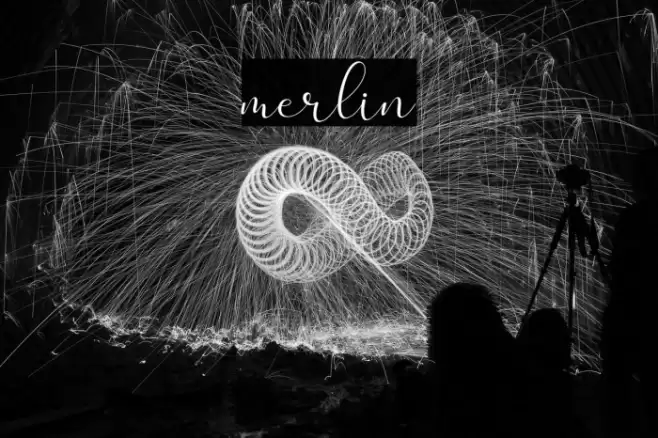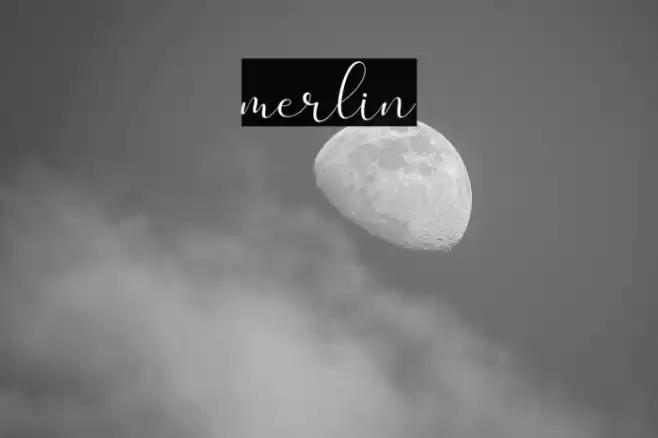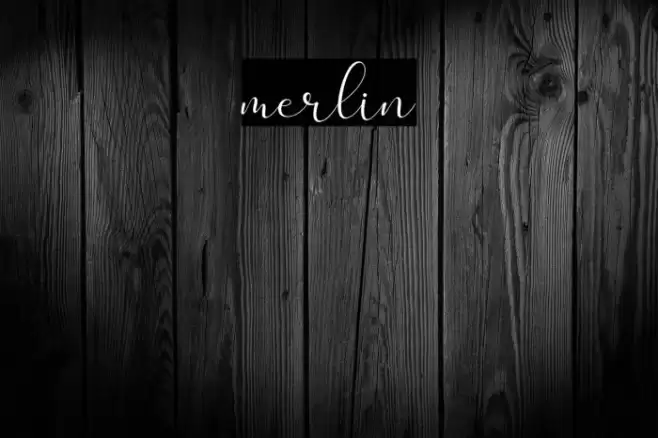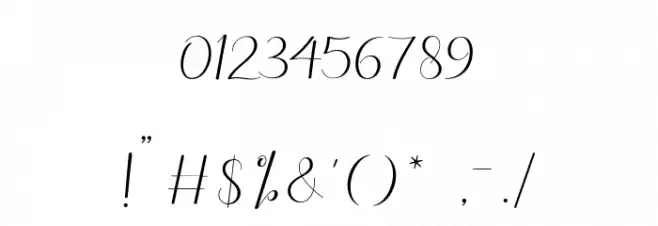
merlin Font
merlin Description
This elegant script font features flowing, interconnected letters with a graceful and sophisticated appearance. The uppercase letters are characterized by their sweeping curves and delicate loops, while the lowercase letters maintain a consistent fluidity, enhancing the overall aesthetic. The numerals are designed with a similar elegance, ensuring a cohesive look across all characters. Special characters are crafted with the same attention to detail, making them suitable for decorative purposes. The font's thin strokes and high contrast between thick and thin lines contribute to its refined and stylish look, making it ideal for formal invitations, branding, and other projects that require a touch of elegance.
A graceful script font with flowing, interconnected letters and high contrast strokes from Regular fonts.
- Proposed Projects: Ideal for wedding invitations, elegant branding, high-end product packaging, and sophisticated event posters.
- Overall Style: Elegant
- Use Case: Invitations, Branding, Decorative